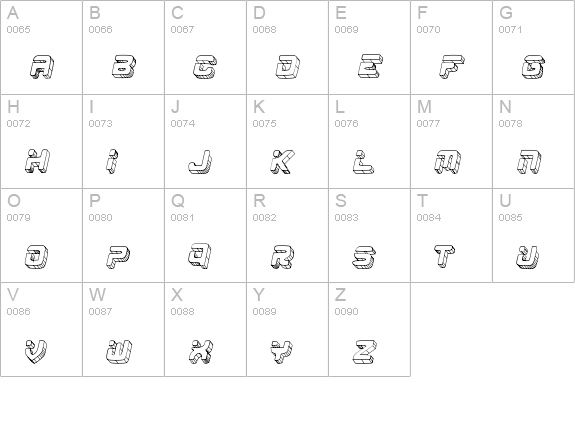
ESPN Font Details
Introducing the captivating ESPN font that effortlessly combines the essence of sport, energy, and excitement. This unique typeface, with its bold and dynamic letterforms, is sure to make any design project stand out from the crowd. Whether you're creating a sports logo, a poster for a thrilling event, or a jaw-dropping headline, the ESPN font will elevate your design to new heights. What's even more incredible is that this remarkable font is available for free! That's right, you can easily download the ESPN font from FontsMarket.com without spending a dime. Embrace the opportunity to add this iconic typeface to your creative arsenal, and unleash your imagination like never before. The ESPN font exudes a sense of power and strength, capturing the essence of sportsmanship in every stroke. Its meticulously designed characters strike the perfect balance between modernity and tradition, making it versatile for a wide range of design projects. From sports-themed websites to athletic apparel, from game graphics to sports magazine covers, the ESPN font is a game-changer. With its clean lines and impeccable readability, this font ensures that your message is delivered with maximum impact. Its distinctive letterforms offer a sense of familiarity, reminiscent of the iconic ESPN logo that has become synonymous with sports broadcasting. The ESPN font is more than just a typeface; it's a statement, a symbol of excellence, and a representation of the passion and dedication that fuels the world of sports. So, why wait? Don't miss out on the opportunity to download the ESPN font for free at FontsMarket.com. With this incredible typeface in your creative toolbox, you'll be able to create designs that capture the essence of sports and captivate audiences like never before. Elevate your typography game and unleash the power of ESPN font today!